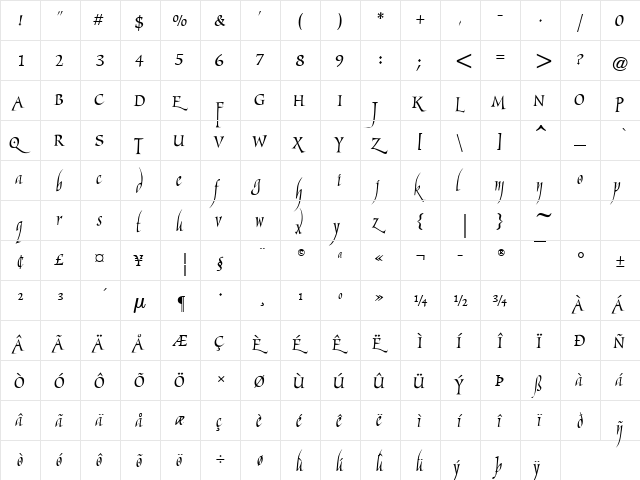
MarigoldWild MarigoldWild
Design Context for MarigoldWild Typeface
MarigoldWild takes a measured approach to typography — its balanced proportions and neutral character make it a reliable workhorse for both digital and print work.